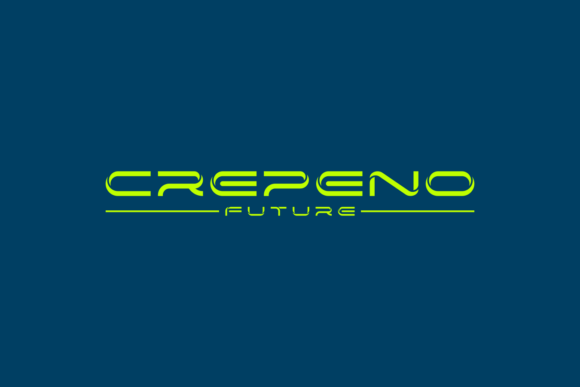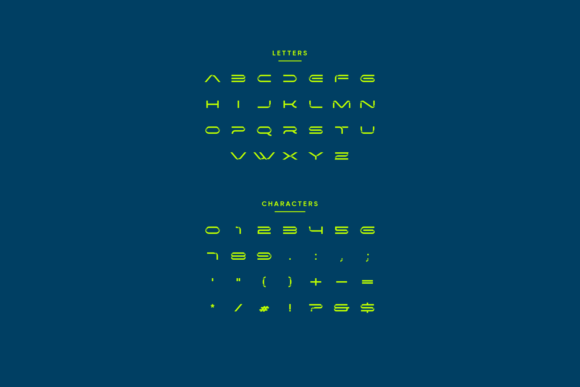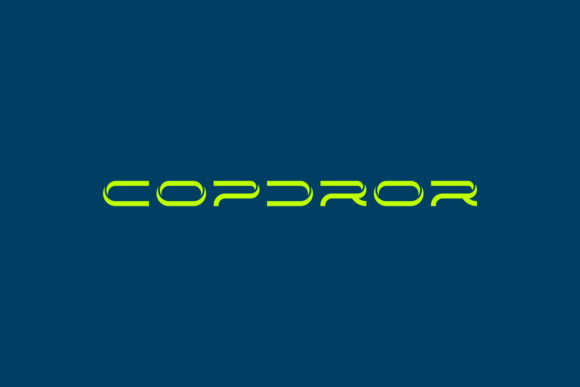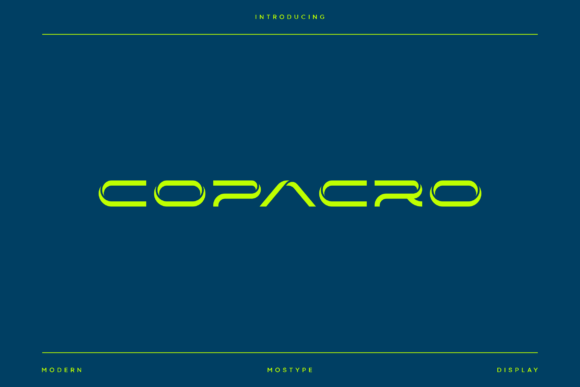
Copacro Font: The Ultimate Modern Futuristic Typeface
In the realm of typography, few fonts have managed to capture the essence of modern futurism as effectively as Copacro. This sleek, futuristic display typeface is engineered to make a statement, combining grid-driven geometry with angular cuts, squared bowls, and clean joins to deliver a sharp, high-tech voice. Whether you’re a designer, craftsperson, or simply a typography enthusiast, Copacro is a font that demands attention.
Copacro’s design is characterized by its all-caps alphabet, tight spacing, open counters, and consistent stroke weight. These features work in harmony to keep the font crisp on screens and signage, while the mechanical rhythm makes wordmarks and short headlines feel engineered and precise. The font’s grid-driven geometry and angular cuts give it a futuristic feel, while the squared bowls and clean joins add a touch of sophistication.
Use Cases
Copacro is a versatile font that can be used in a wide range of applications. Some of the most suitable use cases include:
- Sci-fi movie titles: Copacro’s futuristic design makes it an ideal choice for sci-fi movie titles, adding a touch of otherworldliness to your project.
- Esports and gaming logos: The font’s sharp, high-tech voice is perfect for esports and gaming logos, conveying a sense of speed, agility, and competition.
- UI headers: Copacro’s clean design and consistent stroke weight make it an excellent choice for UI headers, adding a touch of modernity to your interface.
- Automotive and aerospace branding: The font’s futuristic feel and mechanical rhythm make it an ideal choice for automotive and aerospace branding, conveying a sense of innovation and precision.
- Crypto and startup identities: Copacro’s modern design and sharp lines make it a popular choice for crypto and startup identities, adding a touch of sophistication and cutting-edge technology.
- Event posters: The font’s bold, futuristic design makes it an excellent choice for event posters, grabbing the attention of your audience and conveying a sense of excitement.
- Motion graphics: Copacro’s clean design and mechanical rhythm make it an ideal choice for motion graphics, adding a touch of modernity and sophistication to your project.
Tips for Using Copacro
To get the most out of Copacro, here are a few tips to keep in mind:
- Set it big: Copacro is a display font, and it’s best used at larger sizes. This will allow you to take full advantage of its futuristic design and sharp lines.
- Letter space for a cinematic vibe: Adding a bit of letter spacing can give Copacro a cinematic feel, making it perfect for movie titles, posters, and other applications where you want to make a statement.
- Layer outlines and neon: For a pure future aesthetic, try layering outlines and neon effects over your Copacro text. This will add a touch of depth and dimensionality to your design.
Copacro is a modern futuristic typeface that’s perfect for designers and craftspersons looking to add a touch of cutting-edge technology to their projects. With its sleek design, sharp lines, and mechanical rhythm, Copacro is an ideal choice for a wide range of applications, from sci-fi movie titles to esports logos and UI headers. By following the tips outlined above, you can get the most out of Copacro and add a touch of tomorrow’s attitude to your design today.
- All-caps alphabet: Copacro features a sleek, all-caps alphabet that’s perfect for display text.
- Grid-driven geometry: The font’s grid-driven geometry gives it a futuristic feel and a sense of precision.
- Angular cuts: Copacro’s angular cuts add a touch of sophistication and sharpness to the font.
- Squared bowls: The font’s squared bowls give it a clean, modern feel.
- Clean joins: Copacro’s clean joins help to create a sense of flow and continuity.
- Tight spacing: The font’s tight spacing helps to create a sense of urgency and precision.
- Open counters: Copacro’s open counters add a touch of elegance and sophistication.
- Consistent stroke weight: The font’s consistent stroke weight helps to create a sense of cohesion and balance.